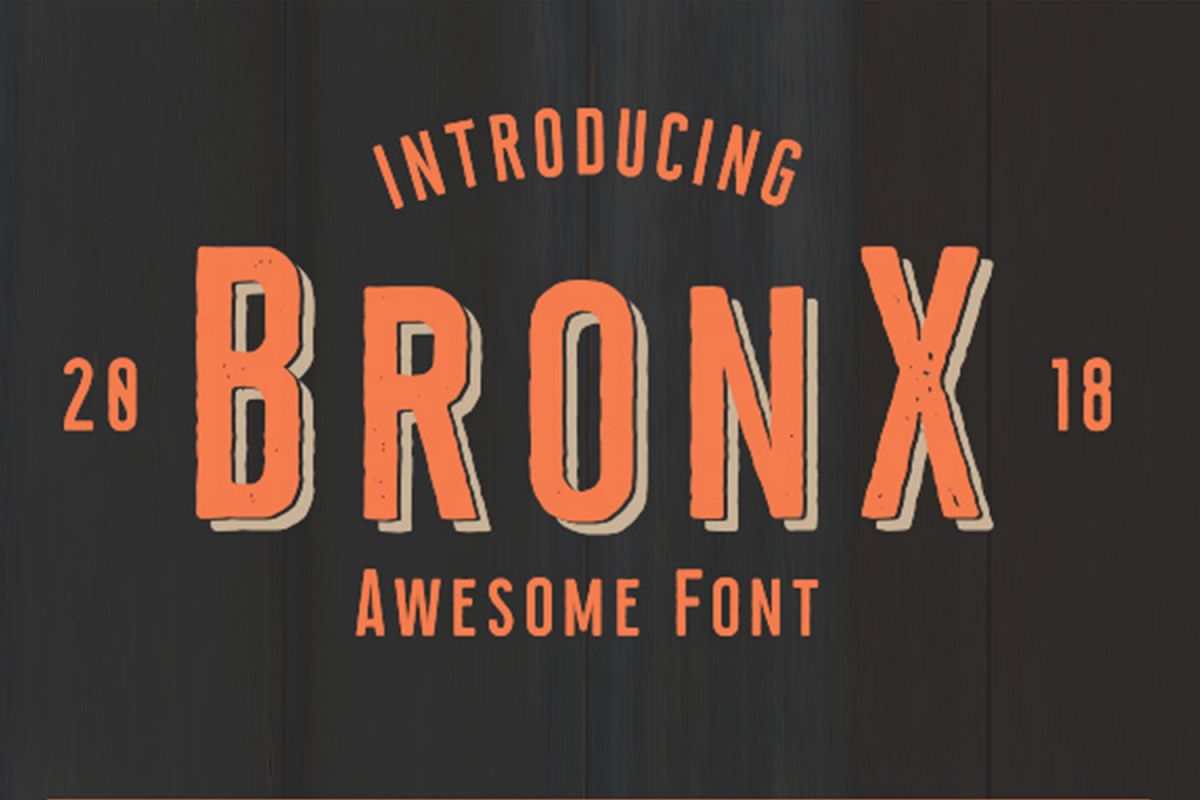
Bronx
Bronx-trace
based from Bebas nue, for inspirations made this font look like elegant, sturdy look, not eliminating the sense of the font today. suitable for posters, invitations, t-shirt or ads for those of you who need. The packages include 4 font files of TTF and OTF versions, split into two forms of REGULAR and DISTRESSED version fonts.
Bronx